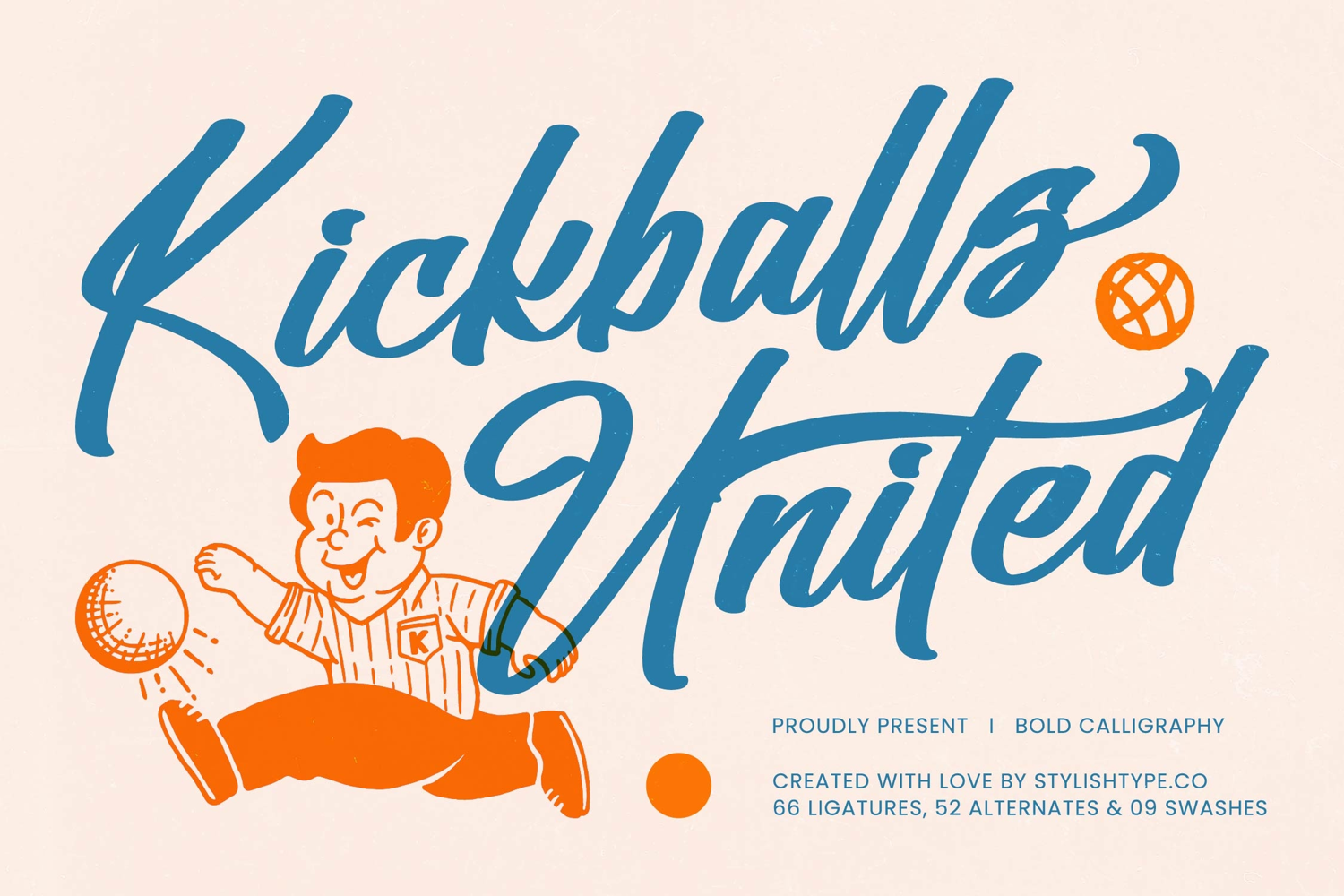
Kickballs United - Bold Calligraphy
Kickballs United Italic
Kickballs United
Inject immediate energy and dynamic motion into your branding. The display typeface Kickballs United - Bold Calligraphy is a meticulously crafted brush script, capturing the vibrant spirit of vintage sports advertisements and mid-century Americana. Its dynamic flow and robust weight ensure maximum impact, making it the perfect choice for attention-grabbing headlines and bold editorial statements that demand to be noticed.